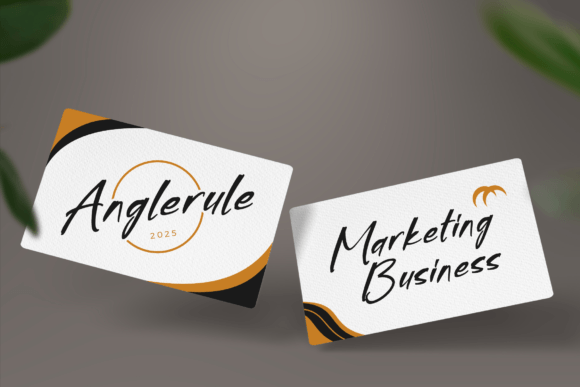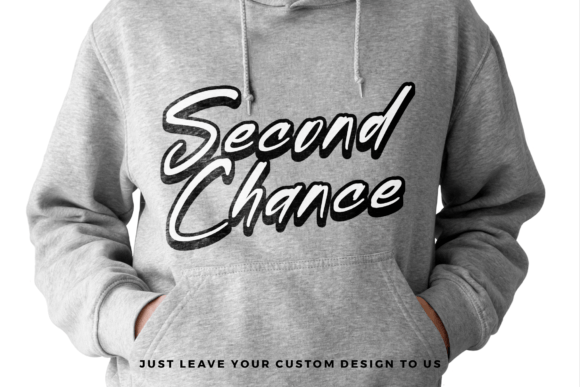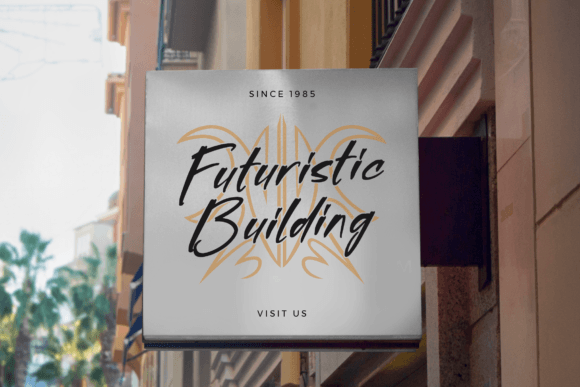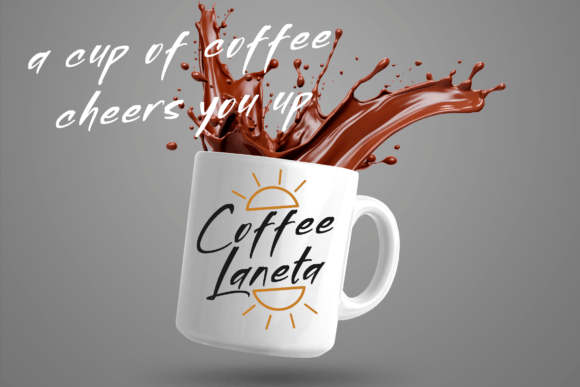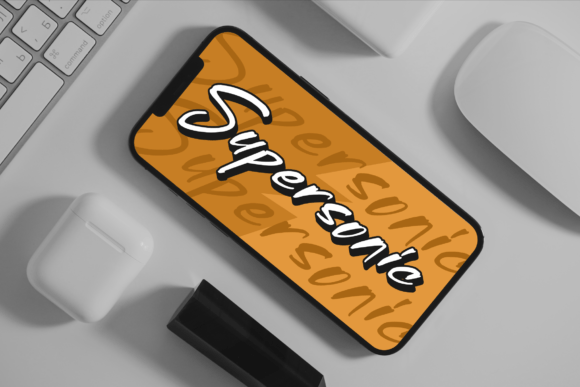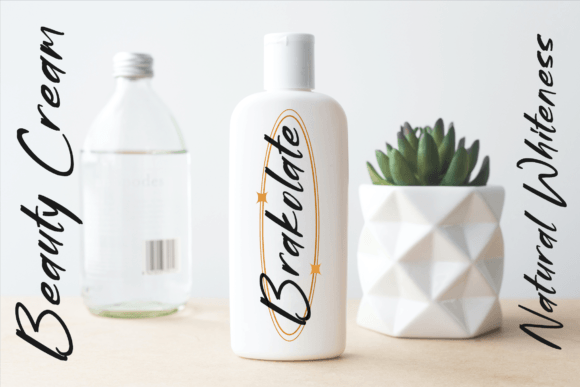
Introducing Gloryvibes Jordanila Font: Elevate Your Designs with Elegance
In the world of typography, a font can make or break a design. For designers and crafters looking for that perfect touch of elegance and sophistication, Gloryvibes Jordanila Font is here to transform your projects. Developed by Glorytype Studio, this stunning handbrush display font is versatile and can be used in a myriad of creative endeavors. Whether you’re working on logos, branding projects, homeware designs, product packaging, or a host of other ventures, Gloryvibes Jordanila is the perfect companion to bring your vision to life.
The Essence of Gloryvibes Jordanila Font
Gloryvibes Jordanila Font stands out with its unique handbrush script style, offering a distinctively elegant and refined look. This font is not just a typographical element; it’s an expression of artistry and craftsmanship. The fluid strokes and graceful curves of Gloryvibes Jordanila add a touch of sophistication to any design, making it instantly more captivating and memorable.
One of the key advantages of Gloryvibes Jordanila Font is its incredible versatility. It’s suitable for a wide range of projects, including:
- Logos and Branding Projects: Create a lasting impression with a unique logo that speaks elegance and luxury.
- Homeware Designs: Add a touch of sophistication to your home decor designs, making them stand out.
- Product Packaging: Elevate your product’s presentation with a font that exudes quality and refinement.
- Mugs, Quotes, Posters, and Shopping Bags: Bring a personalized and stylish feel to everyday items.
- T-shirts, Book Covers, Name Cards, Invitation Cards, and Greeting Cards: Add an artistic flair to your apparel and stationery.
- Labels and Photography: Use Gloryvibes Jordanila as a watermark or for labeling to add an elegant touch.
- Special Events: Make your event’s promotional materials unforgettable with this beautiful script.
Why Choose Gloryvibes Jordanila Font?
Choosing Gloryvibes Jordanila Font for your projects comes with numerous benefits:
- Elegant and Unique: Stand out from the crowd with a font that is both elegant and distinctive.
- Highly Versatile: Suitable for a wide array of projects, ensuring you can use it across different mediums.
- Support for Creative Freedom: With Gloryvibes Jordanila, your creativity knows no bounds. Experiment with different colors, sizes, and design combinations to bring your unique vision to life.
Gloryvibes Jordanila Font by Glorytype Studio is more than just a font; it’s a design element that can elevate your projects to new heights of elegance and sophistication. Whether you’re a professional designer or a crafter with a passion for creating beautiful items, Gloryvibes Jordanila offers the perfect blend of style, versatility, and artistic expression. Incorporate it into your designs today and witness the transformative power of beautiful typography.